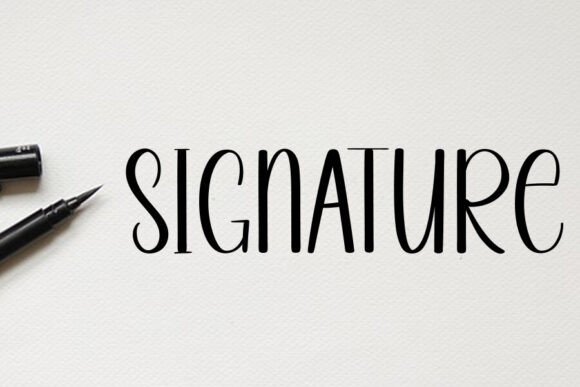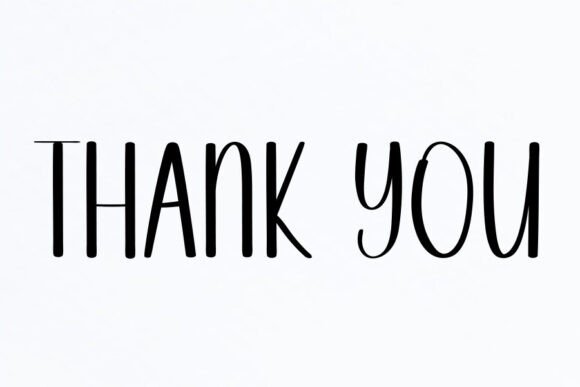
Introduction to Defence Font
Have you ever been working on a creative project and suddenly, the perfect font pops into your mind, elevating the entire design? For designers, that ‘aha’ moment is what makes all the hard work worth it. It’s the spark that ignites imagination and brings a design to life. For me, that moment happened when I stumbled upon the Defence Font – a high-quality, handwritten font that has since become my go-to design resource.
With its unique, beautiful touch, the Defence Font is perfect for creating eye-catching logos, branding, and quotes. Whether you’re working on a personal project or a client brief, this font is sure to make your design stand out. And the best part? The Defence Font is available for free download, making it an accessible and valuable resource for designers of all levels.
Whether you’re working on a project with a transparent background or a bold, graphic design, the Defence Font is the perfect choice. Its timeless appeal and versatility make it an essential addition to any designer’s toolkit.
Key Features of Defence Font
- High-quality design resource with a unique, modern aesthetic, ideal for creative projects.
- Features a transparent background, allowing for seamless integration with any design or layout.
- Designed with a high resolution, ensuring crisp and clear typography, even at large sizes.
- Perfect for use in a variety of design projects, from logos and branding to digital products and publications.
Honest Review: Defence Font
As a designer, I’m always on the lookout for high-quality fonts that can elevate my creative projects. Defence Font caught my attention, and I was eager to give it a try.
- ✨ Unique and bold design style that makes it perfect for modern and edgy projects
- ✨ Transparent background, making it easy to use on any background
- ⚠️ Limited character set, which may not be suitable for longer texts or complex designs
- ⚠️ Not ideal for body text, as it may be too bold and overwhelming
Overall, Defence Font is a great addition to any designer’s arsenal. While it may have some limitations, its unique design style and free download make it a valuable resource for any creative project. I would definitely recommend it for headlines, titles, and other bold typography elements.
The Defence Font is ideal for a variety of creative projects, including logos, brochures, business cards, and presentations. Its high-quality design and transparent background make it a versatile design resource that can be used in a wide range of applications.